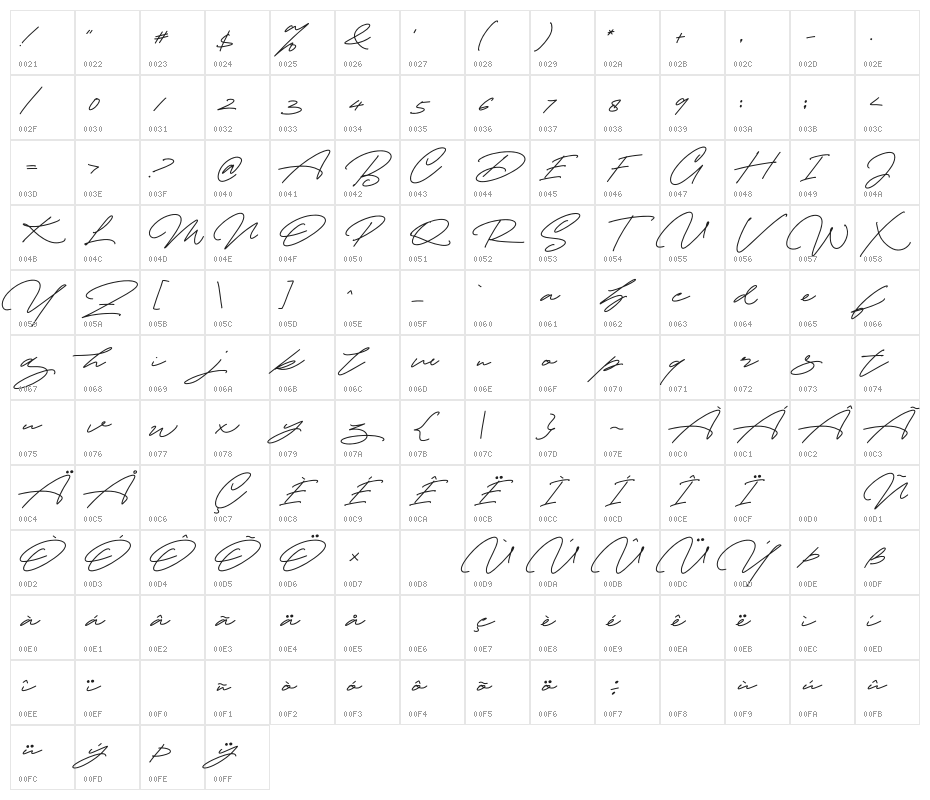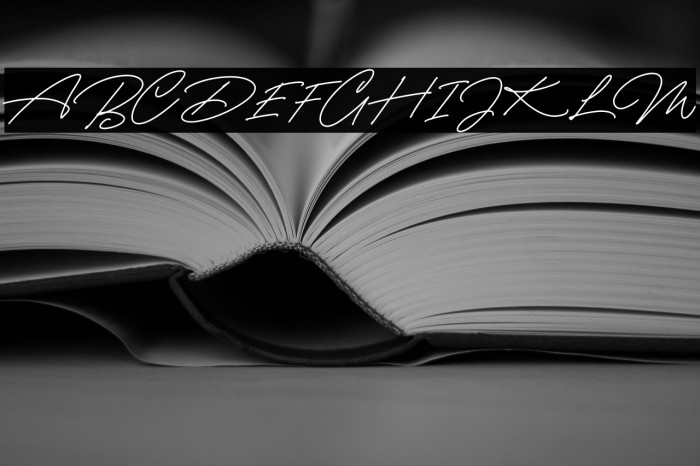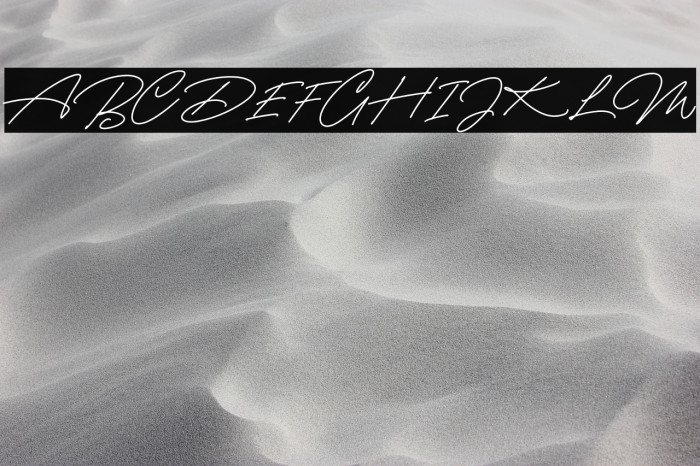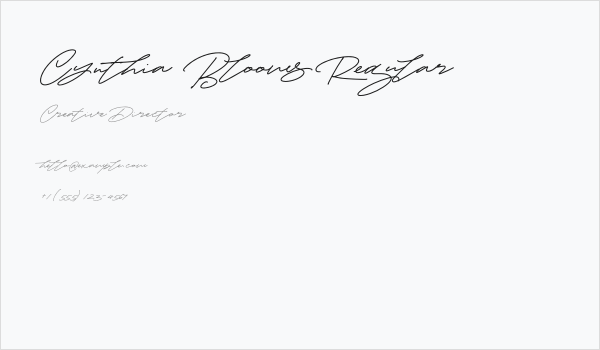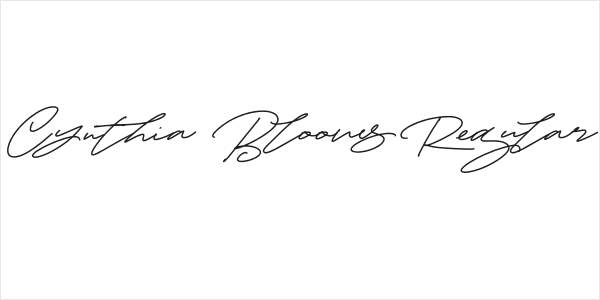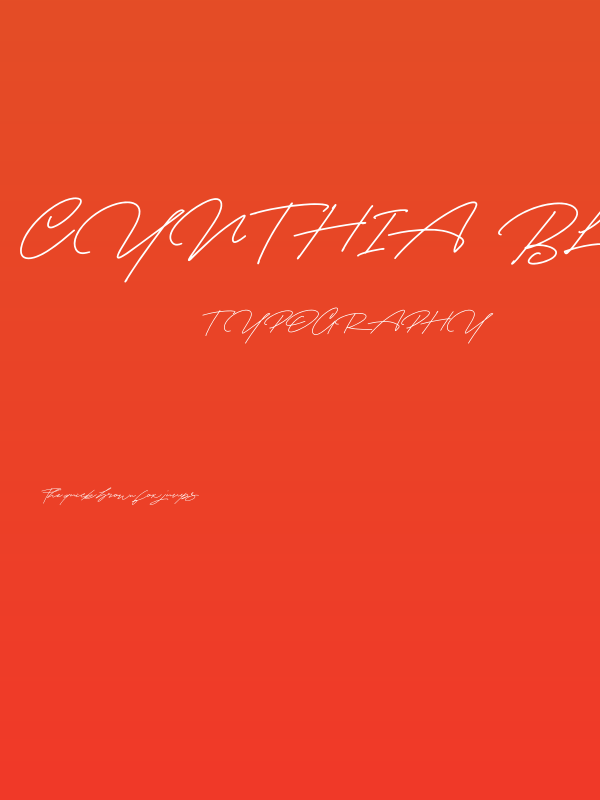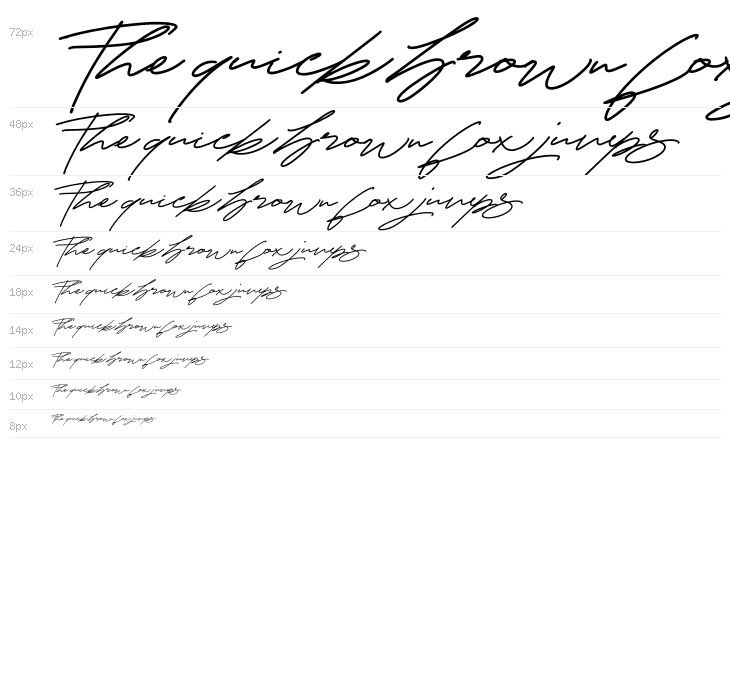
Cynthia Blooms Regular Font
Cynthia Blooms Regular Description
This elegant script font features flowing, cursive letters that mimic the fluidity of handwritten calligraphy. The uppercase letters are gracefully elongated, while the lowercase characters exhibit a charming looped style, adding a touch of sophistication. The numerals maintain the same fluidity, ensuring consistency throughout the design. Special characters are seamlessly integrated, enhancing the font's versatility. This font's delicate strokes and artistic flair make it ideal for projects that require a personal, elegant touch.
| Overall Style | Elegant, Artistic |
| Proposed Projects | Ideal for wedding invitations, greeting cards, personal branding, and elegant packaging designs. |